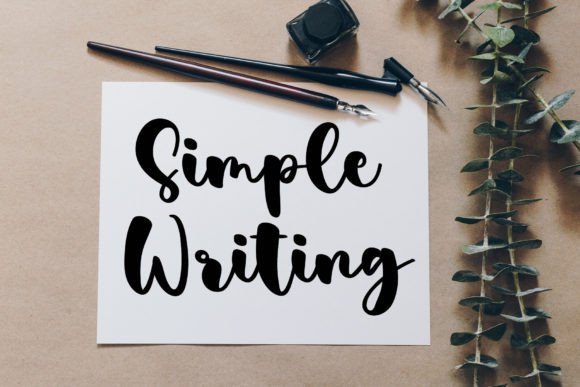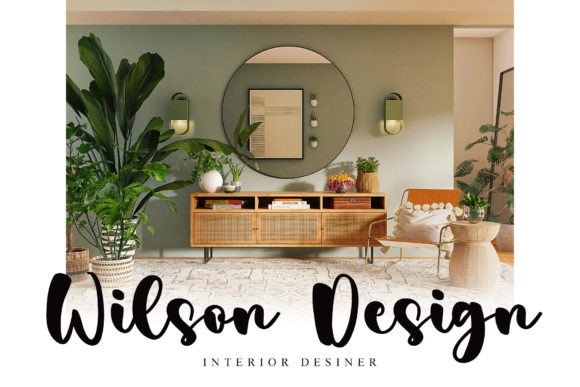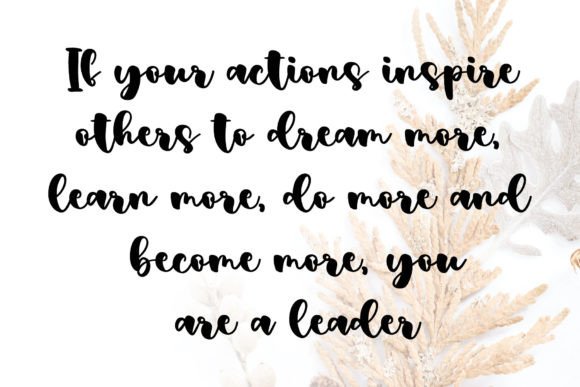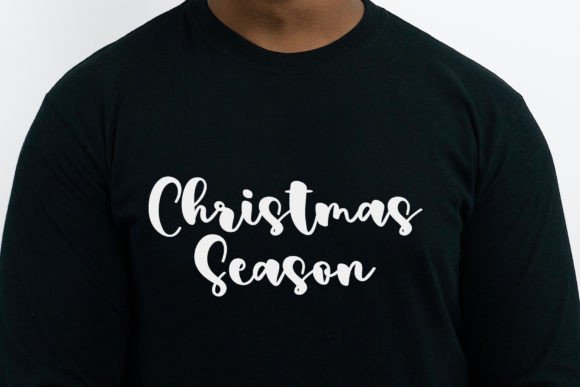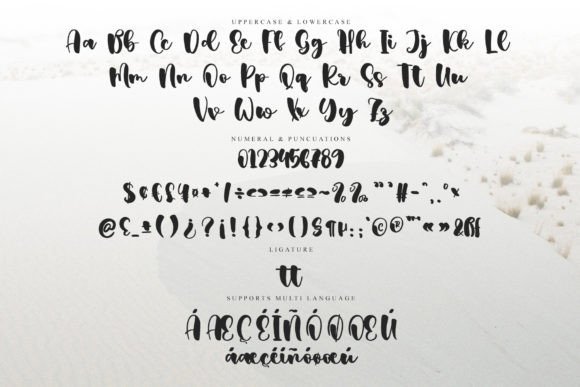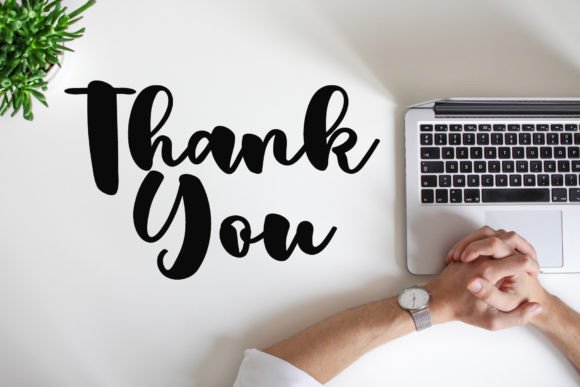
Introduction to Proverty Font
As you’re brainstorming ideas for your holiday-themed creative project, you stumble upon the perfect way to make it stand out – with a font that screams joy and festivity. The moment you see the Proverty Font, you know it’s the one. Its decorative elements and unique flair are a match made in heaven for your design.
But what makes the Proverty Font truly special is its ability to bring a cheerful and nostalgic atmosphere to your words. Whether you’re designing greeting cards, gift labels, or any other holiday-themed project, this high-quality font is a valuable design resource that’s sure to elevate your work. And with its transparent background and PUA coding, you can easily access all the amazing glyphs and ligatures to make your design truly shine.
Key Features of Proverty Font
- Features a unique, modern design that can add a touch of elegance to any creative project.
Honest Review: Proverty Font
As a designer, I’m always on the lookout for high-quality design resources that can elevate my creative projects. Recently, I stumbled upon the Proverty Font, and I’m excited to share my honest review with you.
- High-quality design: The Proverty Font is designed with attention to detail, ensuring a polished and professional look.
Limitations: ⚠️ While the Proverty Font is an excellent design resource, it may not be suitable for projects that require a lot of customisation. The font is designed to be used as-is, and any significant modifications may affect its overall aesthetic.
Tips for Getting the Most Out of Proverty Font
Experiment with different font sizes, colors, and styles to create visually appealing designs. Use the font in combination with other design elements, such as images and graphics, to add depth and interest to your projects.
Proverty Font is suitable for a wide range of creative projects, including graphic design, digital marketing, and publishing. Use it to create eye-catching headlines, titles, and body text for your website, social media, or print materials.